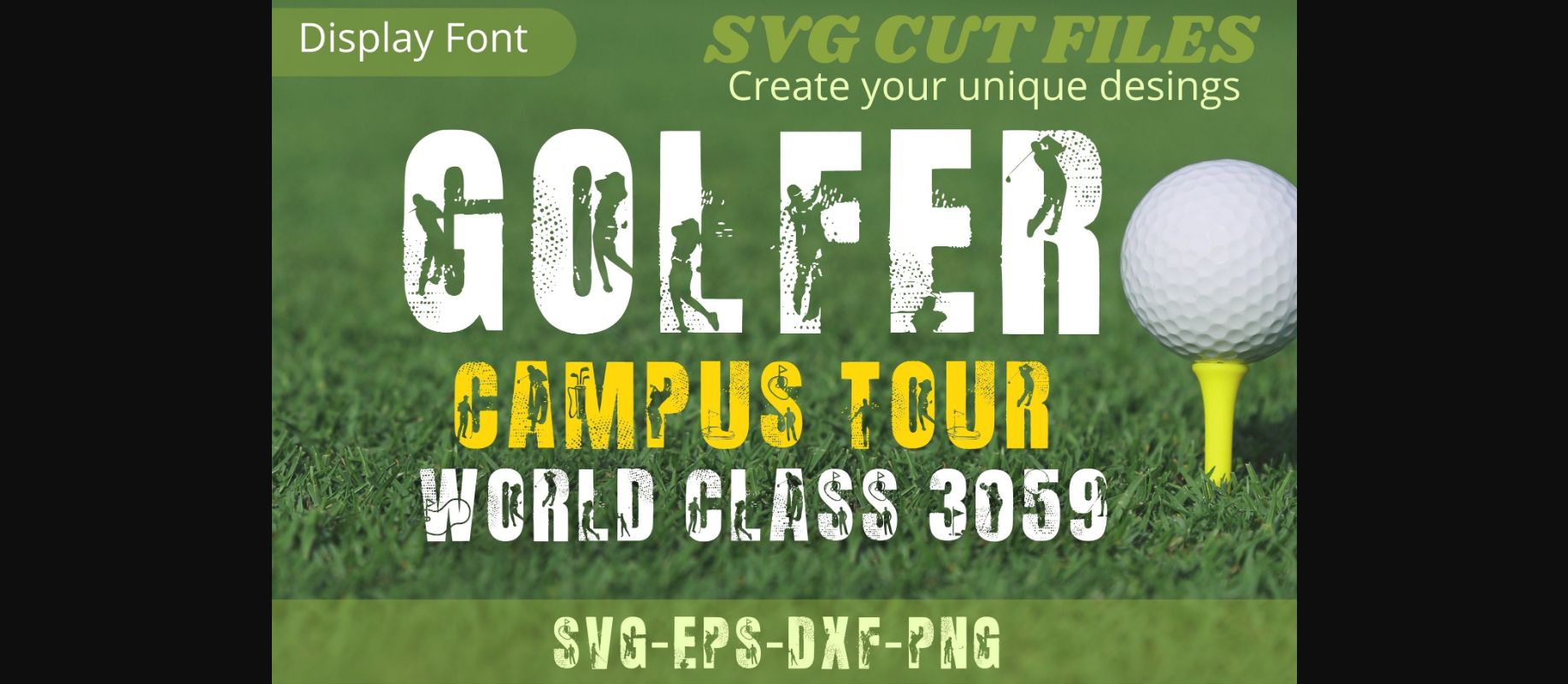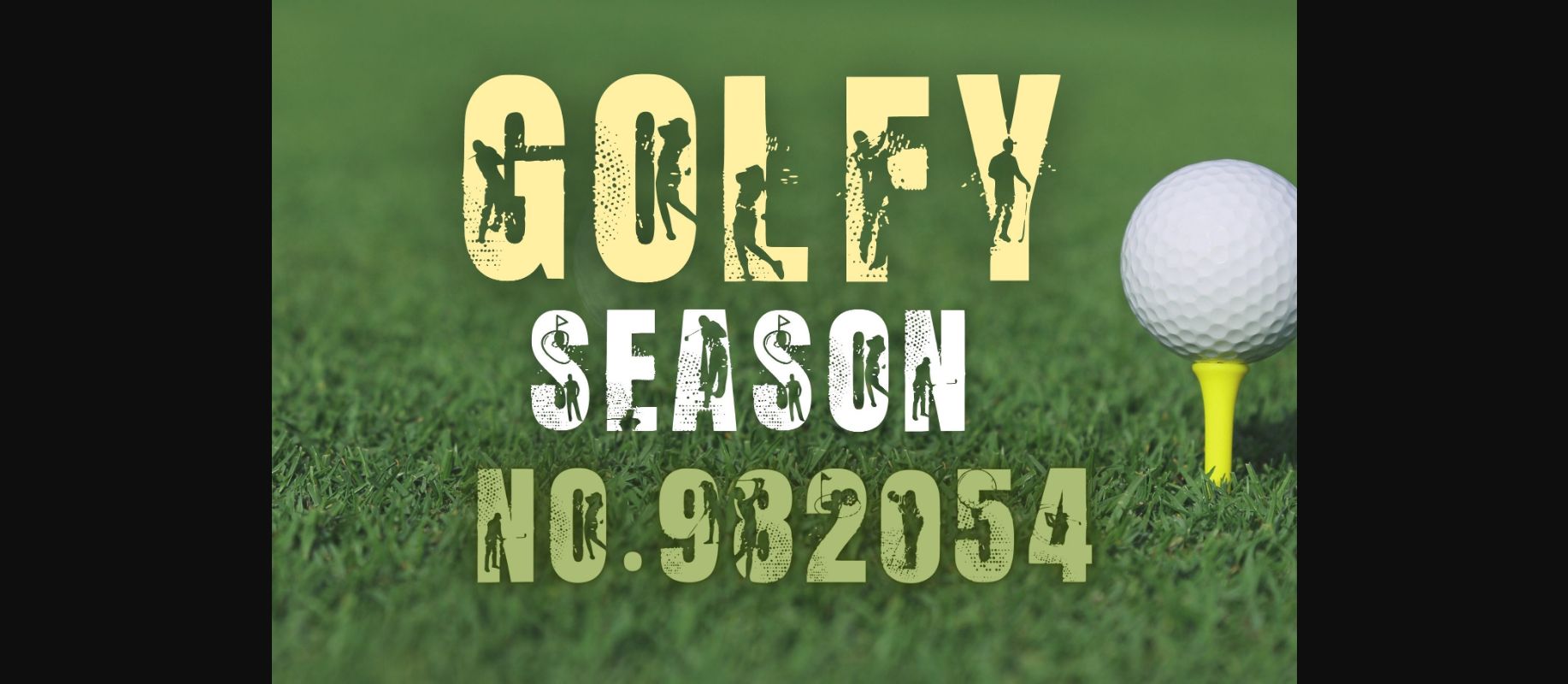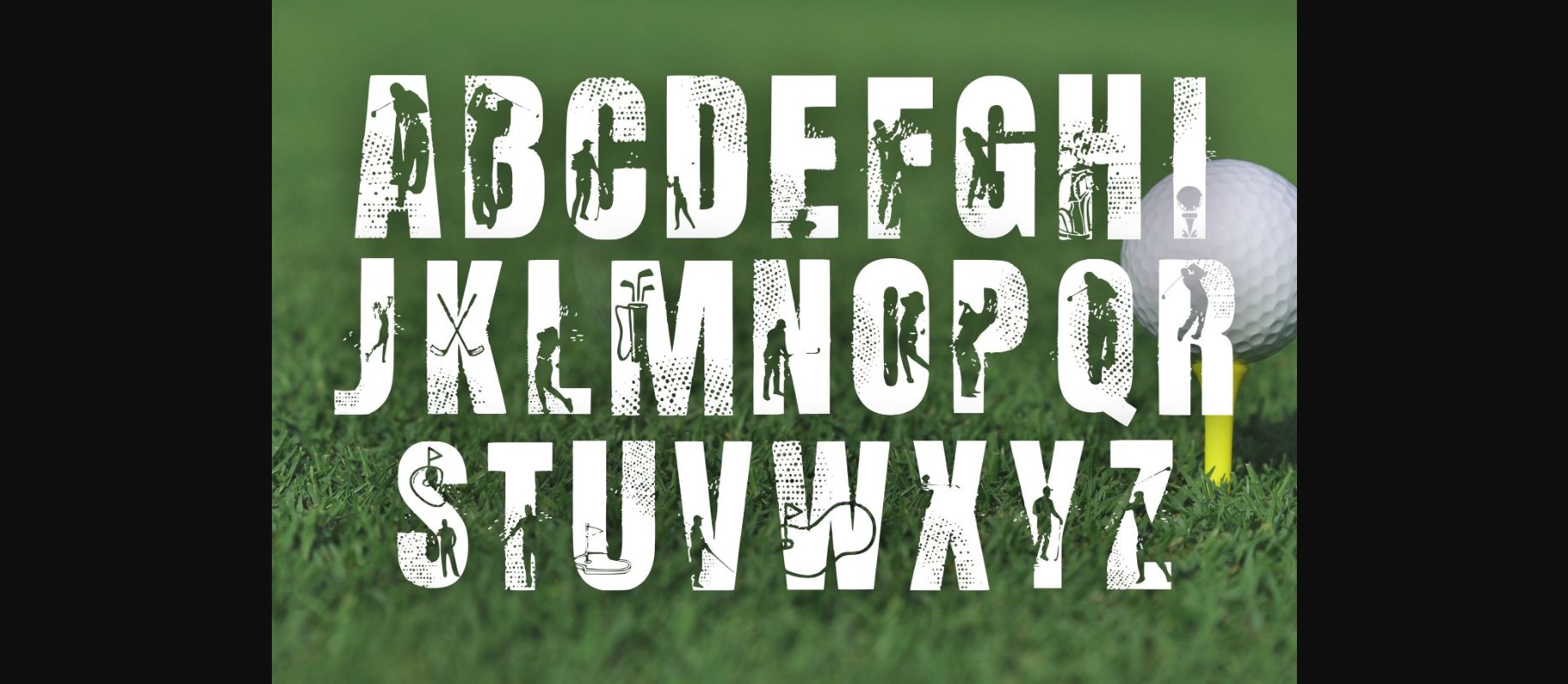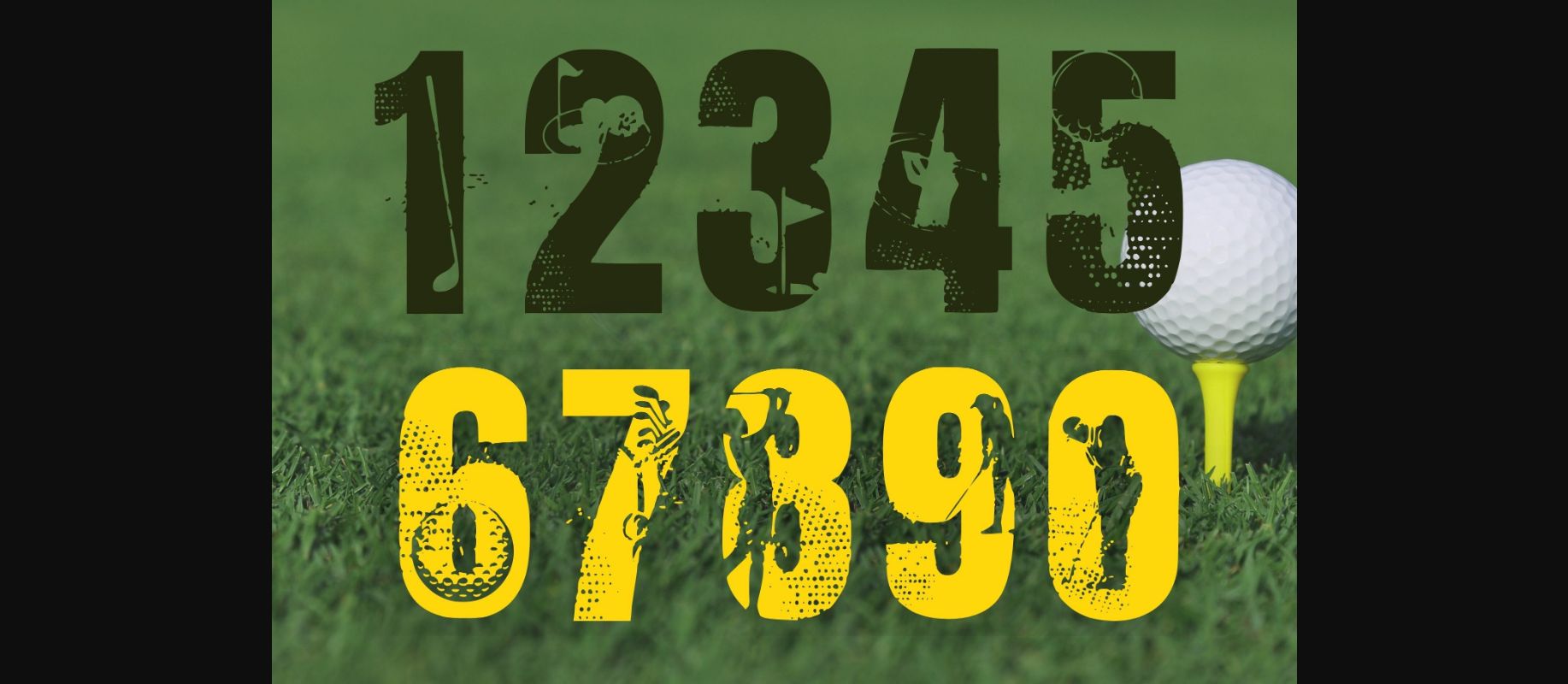
Golfer Campus Tour Font
About Golfer Campus Tour Font
Golfer Campus Tour is a cool and sporty decorative font. Add it confidently to your projects, and you will love the results. Your options are limitless!